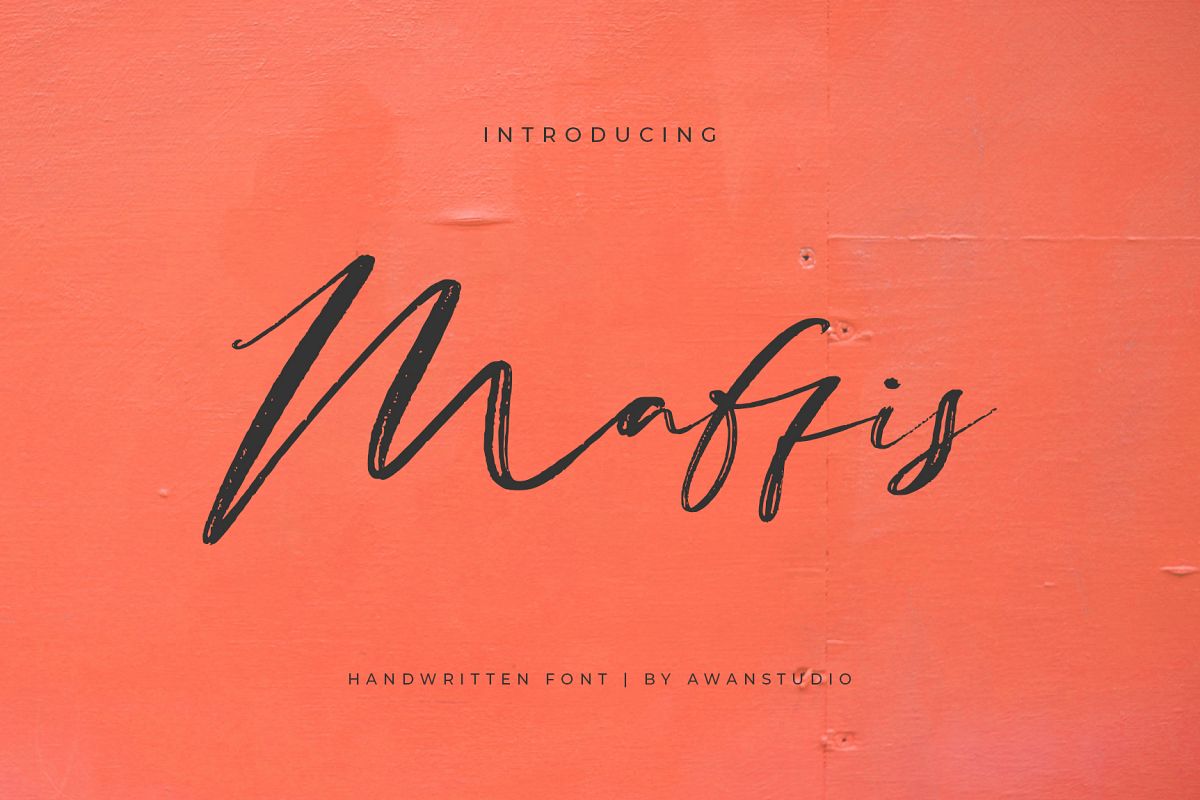
Maffis Handwritten Font
Maffis is a light and charming handwritten font with an incredibly stunning vibe. Use it to add a touch of authenticity to any creative project!